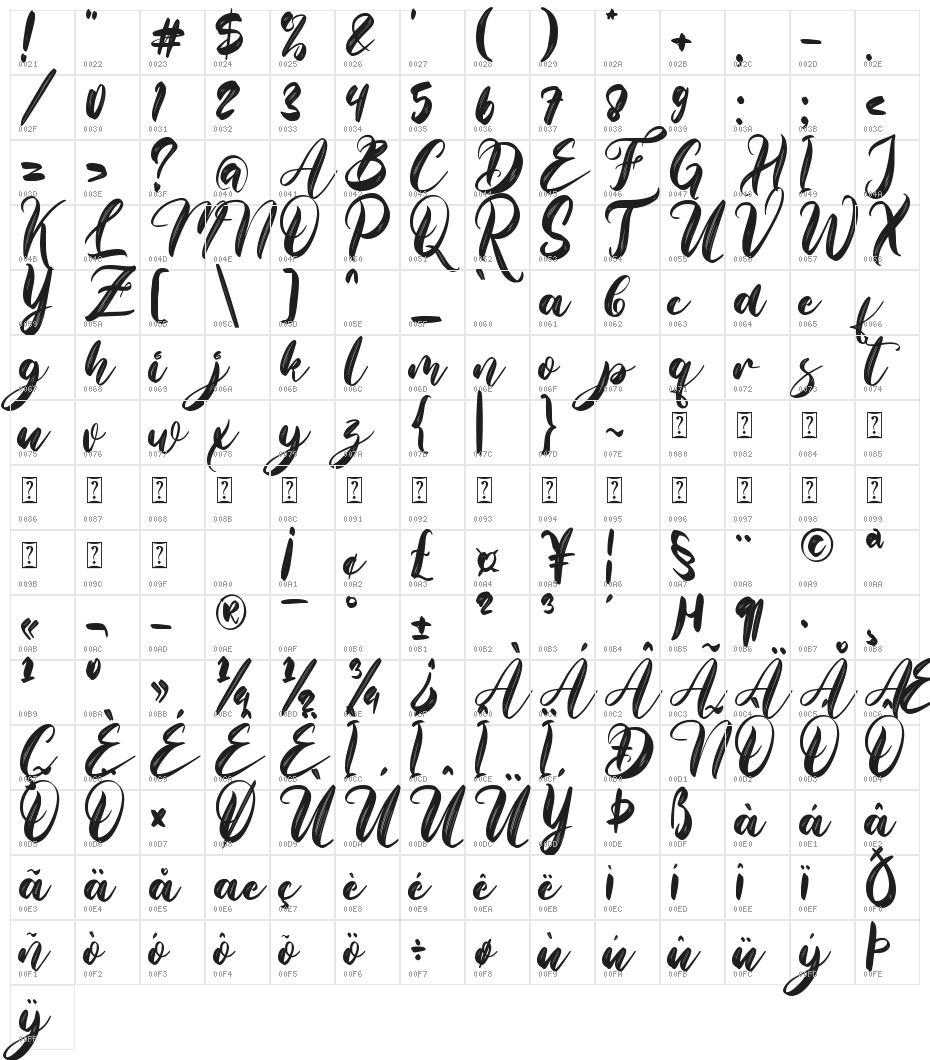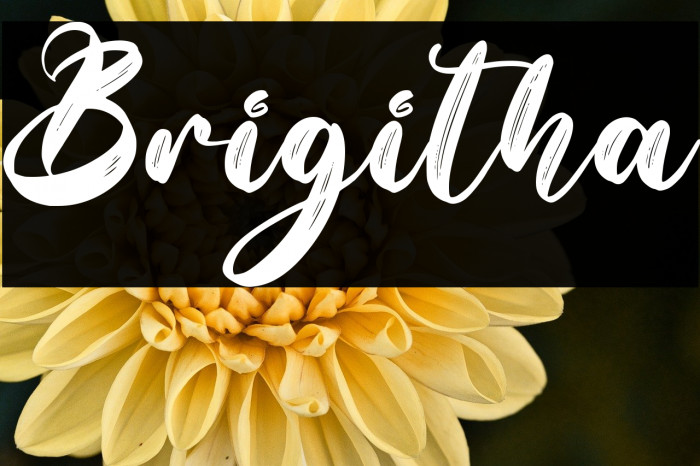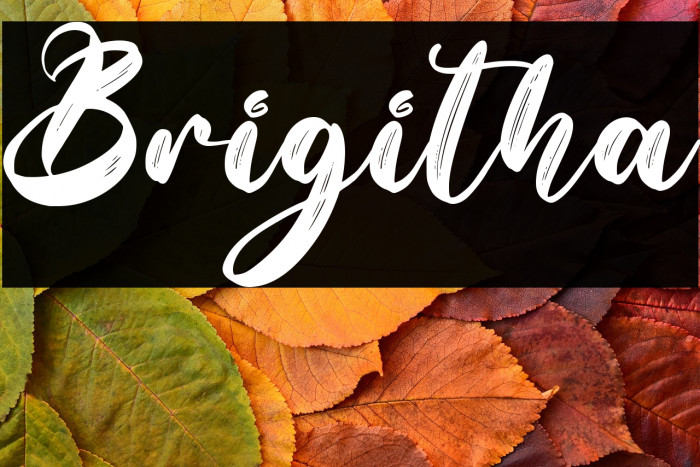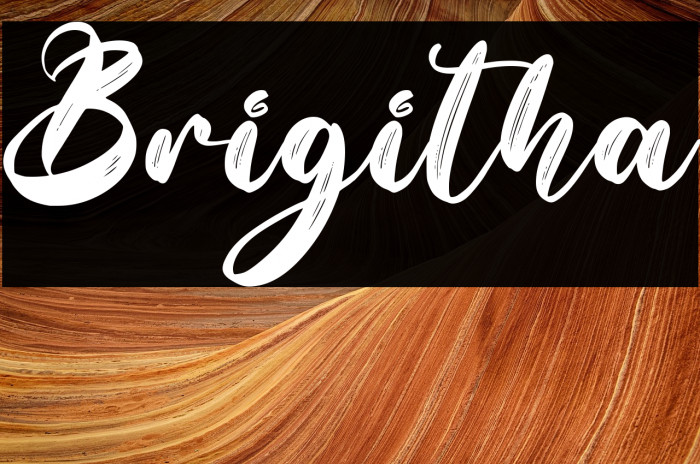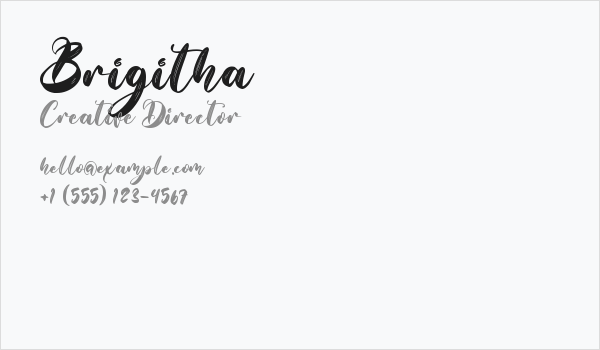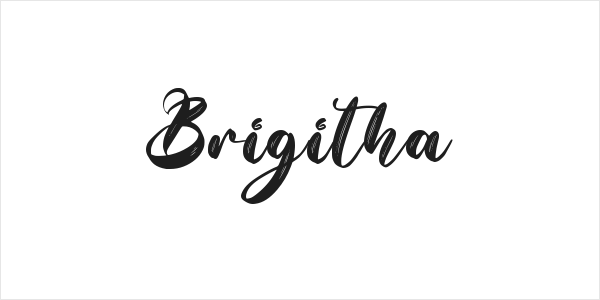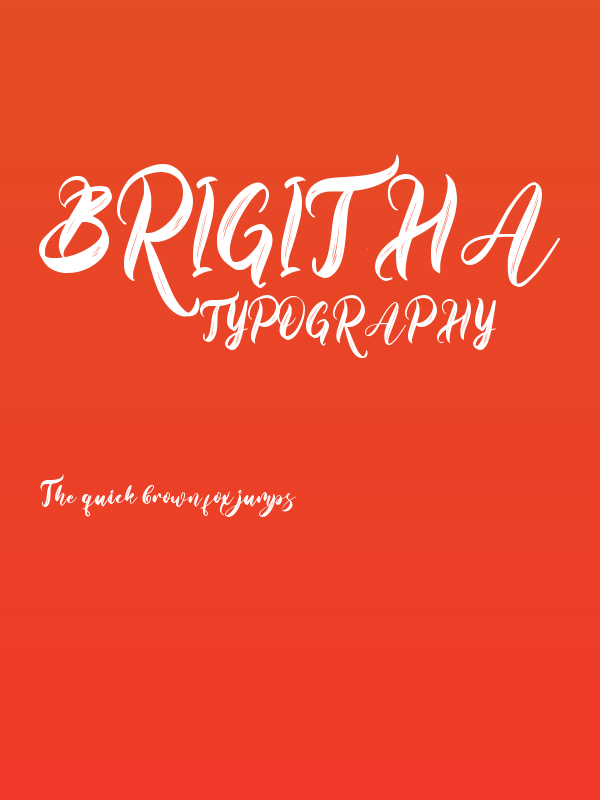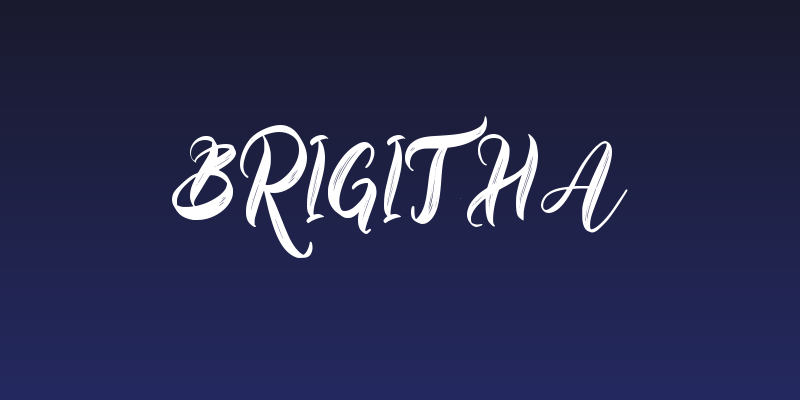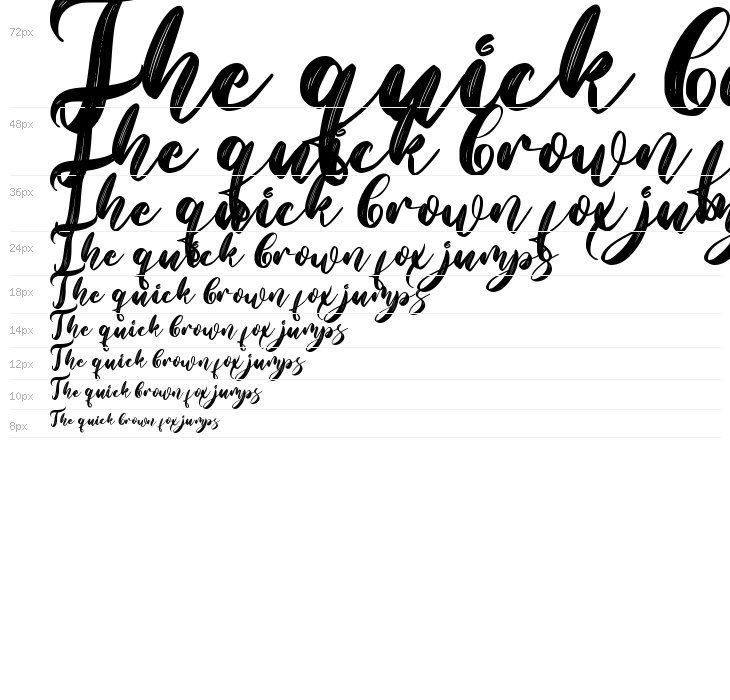
Brigitha Font
Brigitha Description
This font exudes a dynamic and expressive style, characterized by its bold, sweeping strokes and fluid, cursive design. The uppercase letters are particularly striking, with elegant loops and flourishes that add a sense of movement and grace. The lowercase letters maintain this fluidity, with some characters featuring unique embellishments that enhance their visual appeal. The numbers and special characters are equally bold, ensuring consistency across the entire typeface. This font's brush-like texture gives it a handcrafted feel, making it ideal for projects that require a personal touch.
| Use Case | Logos, Headlines, Artistic projects |
| Proposed Projects | Ideal for branding, invitations, greeting cards, and artistic projects that require a personal and dynamic touch. |